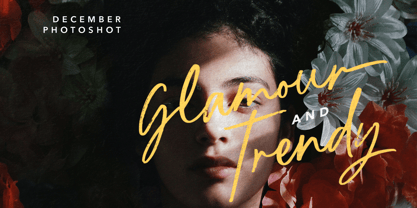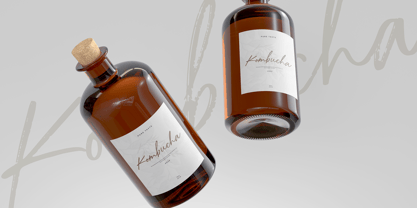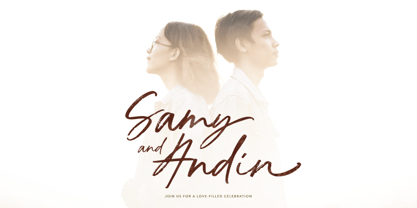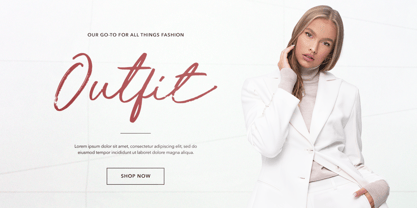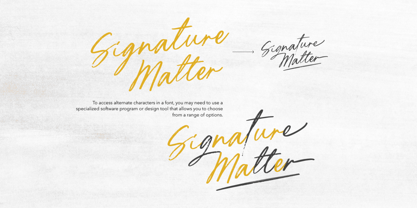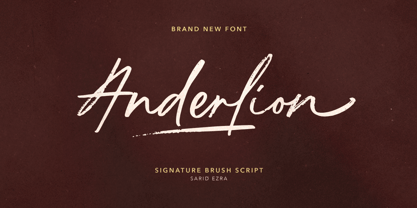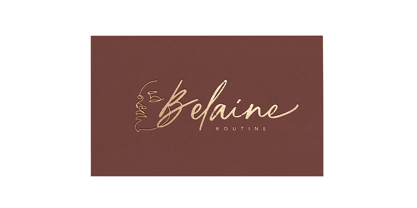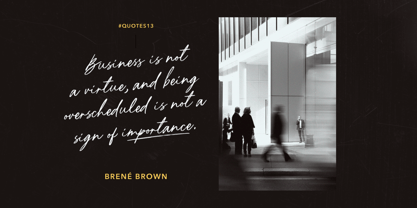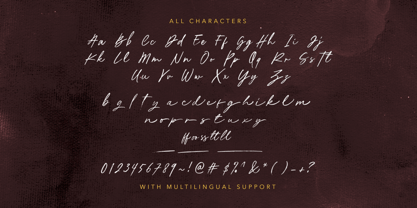
Anderlion
by Sarid Ezra
The Anderlion Font Family was designed by Sarid Ezra and published by Sarid Ezra. Anderlion contains 1 styles.
Anderlion is a signature script with textured brush that contain stylistic alternate, underline, and ligatures to make your own signature or logo design. Ardelion You can use this font to make a logo for branding, beautiful fashion design, suitable for wedding invitation, or handwritten quote.